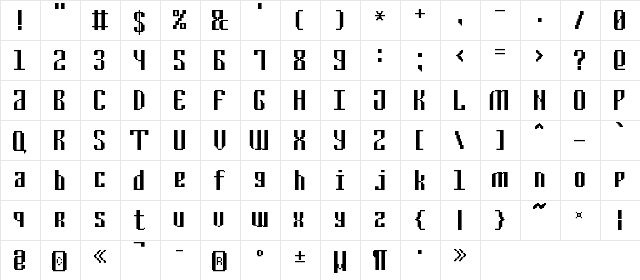
Cyrillic Pixel-7 Regular
Design Context for Cyrillic Pixel-7 Typeface
Cyrillic Pixel-7 is rooted in pixel-grid construction, making it a natural fit for game UI, retro computing aesthetics, and digital nostalgia projects.
A natural choice for retro game titles, chiptune music branding, 8-bit UI, and digital nostalgia projects.
Pro Tip: Pair Cyrillic Pixel-7 with flat colour palettes and simple geometric UI elements to reinforce its digital aesthetic.